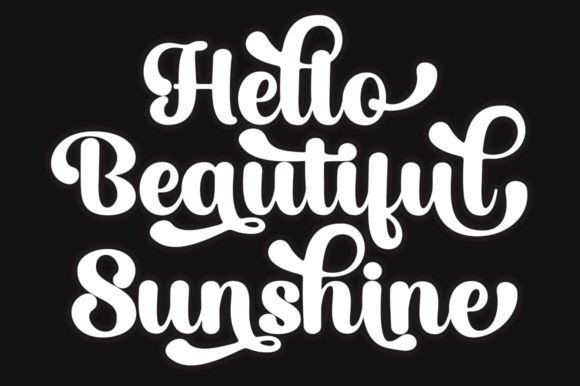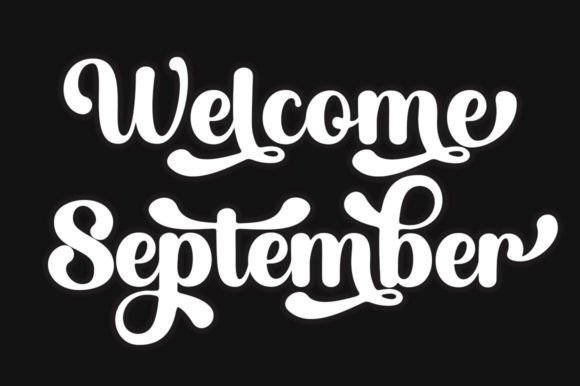
Vintage Chocolate Font
Vintage Chocolate Script is a neat, smooth, modern, and classic handwritten wavy calligraphy, created to meet the needs of your design project.
Vintage Chocolate Script can be used for various purposes, such as titles, signatures, logos, correspondence, business cards, quotes, wedding invitations, signs, labels, bulletins, posters, badges, etc.
Vintage Chocolate Script Contains a complete set of lowercase & uppercase letters, punctuation, numbers, and multilingual support, This font also contains several ligatures, style alternatives, and Style Sets, for those of you who have open type, or via a software panel that supports the engine fly .